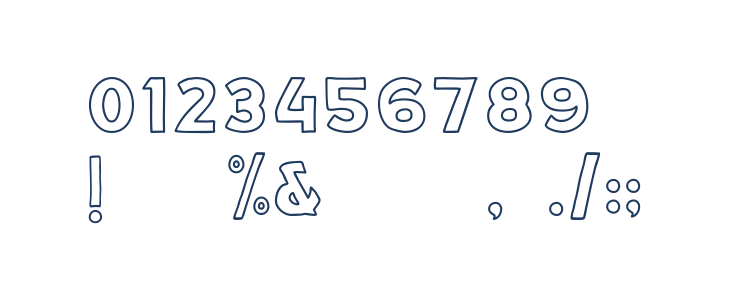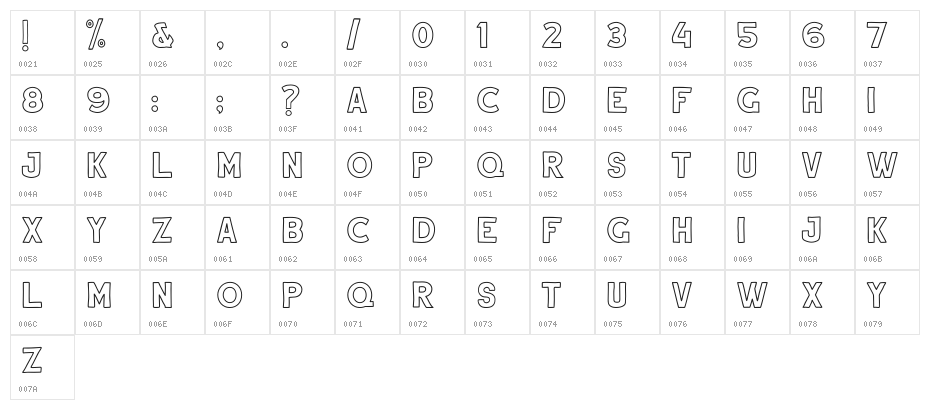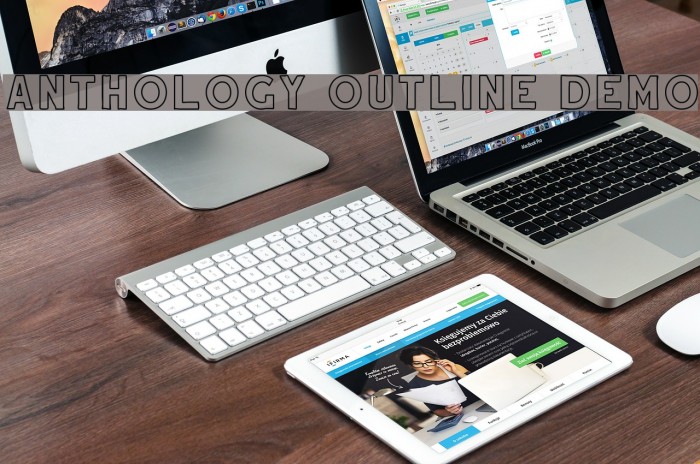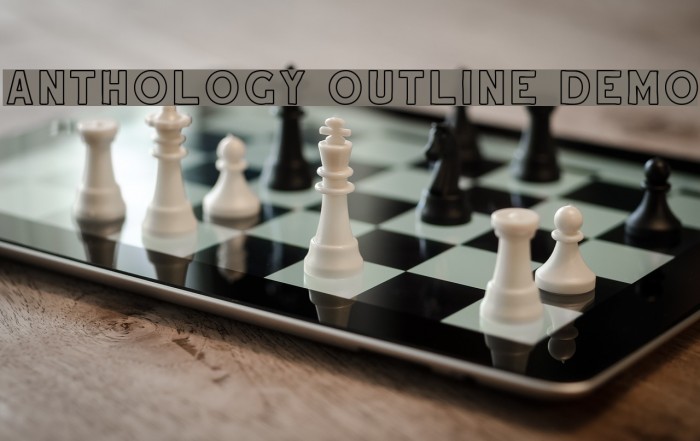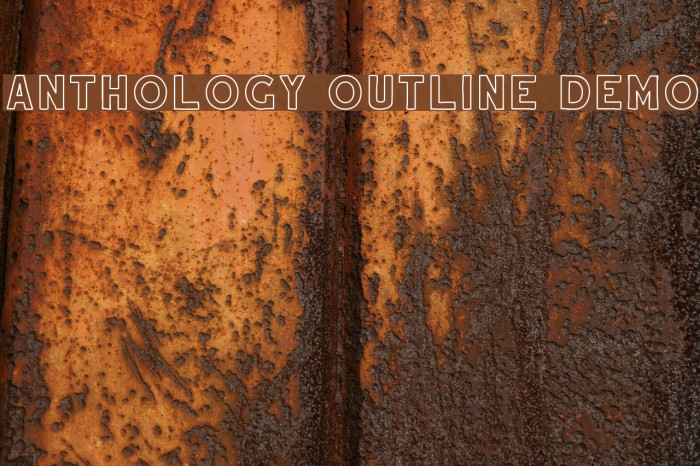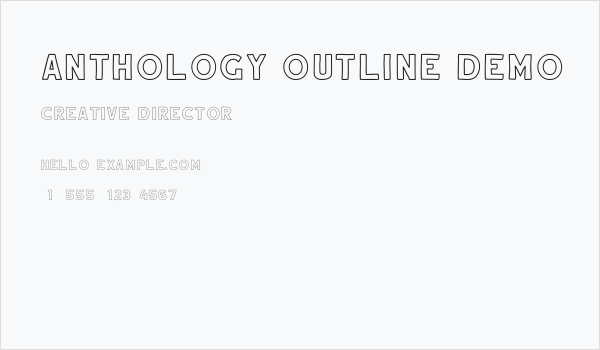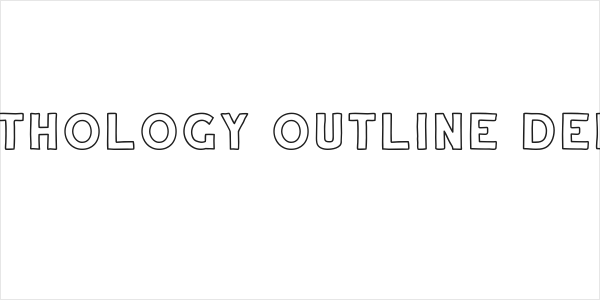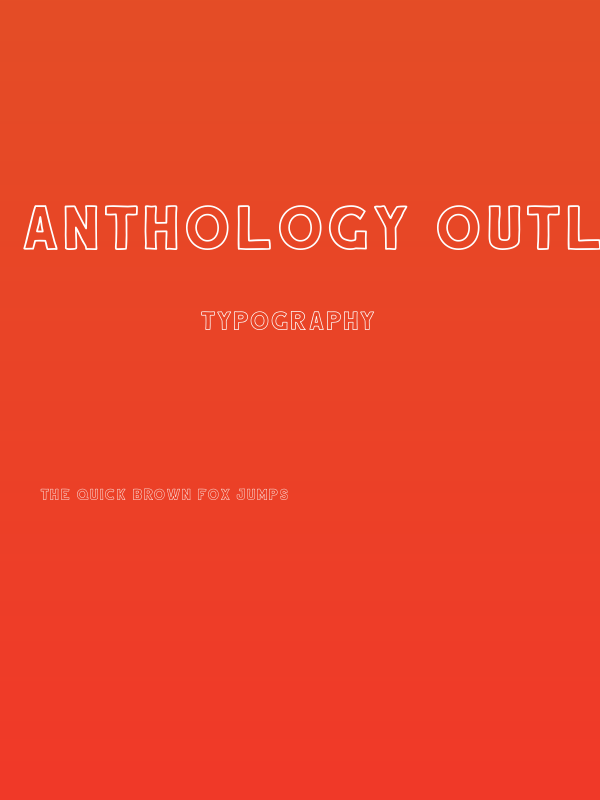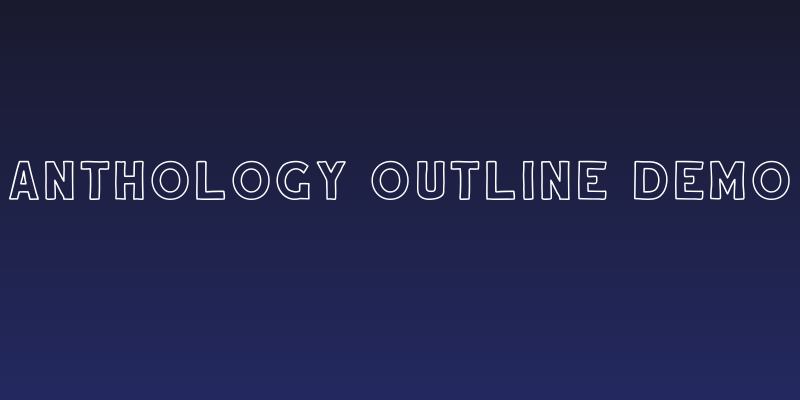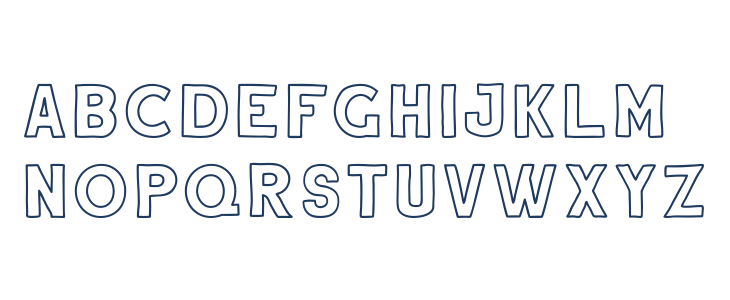
Anthology Outline DEMO Font
This font features a clean, geometric outline style that gives it a modern and minimalist appearance. The characters are constructed with uniform line thickness, creating a balanced and cohesive look. Its uppercase and lowercase letters, along with numerals and special characters, maintain a consistent design, making it versatile for various applications. The open, airy design of the characters enhances readability while adding a contemporary flair. This font's simplicity and clarity make it suitable for both digital and print media, where a sleek and stylish aesthetic is desired.
Proposed ProjectsIdeal for branding, headlines, posters, and digital media where a modern and clean look is desired.